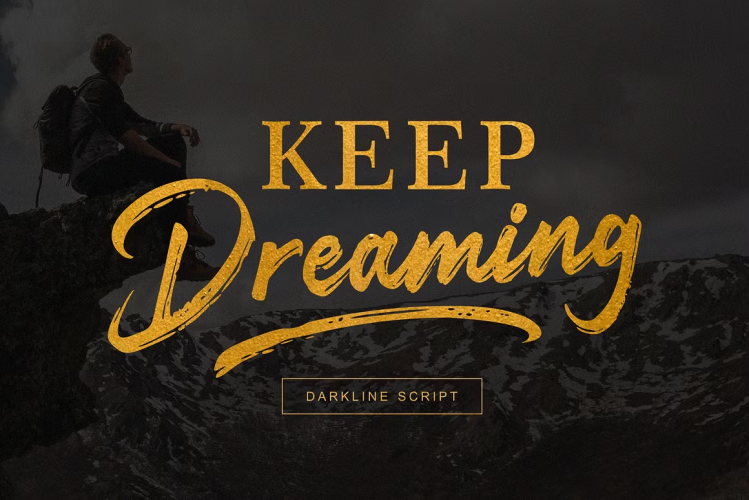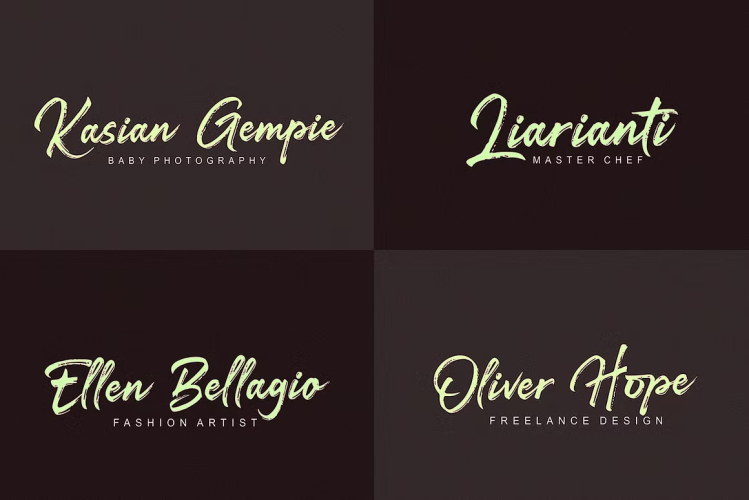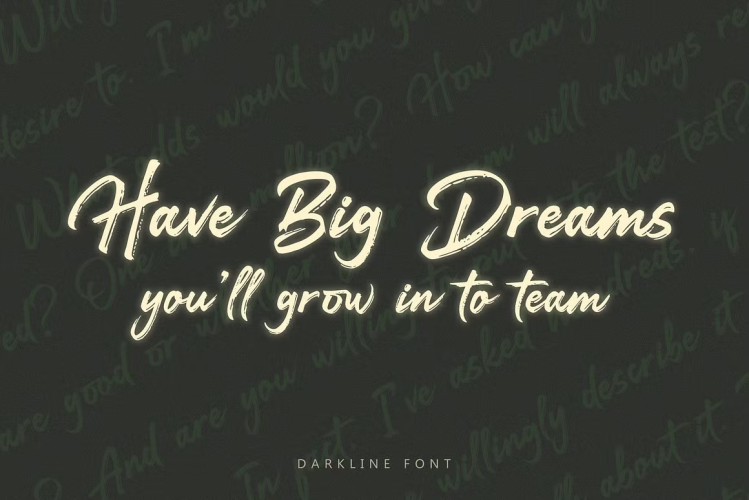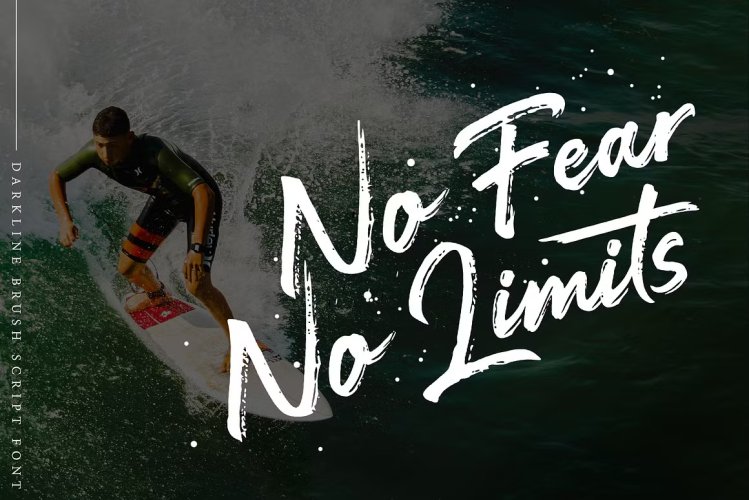
Darkline Font
Introducing: Darkline is a brush script font, a dapper handwritten font with a personal charm. With quick dry strokes and a signature style, Darkline is perfect for branding projects, homeware designs, and product packaging – or simply as a stylish text overlay to any background image.
Where Darkline Font works best
A short phrase in Darkline Font carries warmth that a typeset sans cannot fake; keep the rest of the card plain.
Chalkboard-style headings in Darkline Font make a menu feel hand-made. Keep the dish descriptions in a simple face so prices stay readable.
One line of Darkline Font over a photo is enough; the script carries the tone and the caption does the work.
What kind of work does Darkline Font suit?
It sits in the Script And Handwritten group and reads as branding, brush, handwritten, script. That makes it a candidate wherever those qualities help: headings, packaging, social graphics and brand work. Set it at the size you plan to use before deciding.